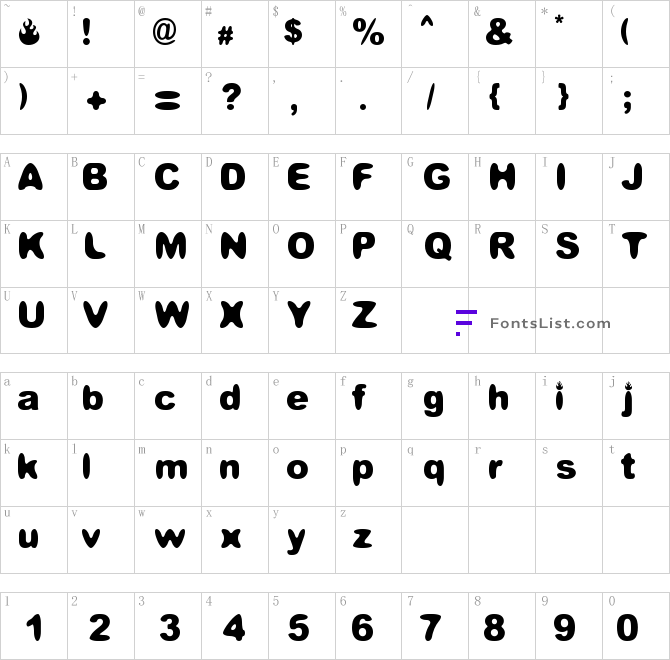
- Font Name:Candelita
Candelita.ttf is a very beautiful artistic font, Candelita.ttf is widely used in the design and printing of various books and pictures,Candelita.ttf has a strong visual impact,Candelita.ttf is a commonly used font in newspapers, magazines and books, and is used in posters, e-commerce Poster design, store design, logo design, font design and other fields.Candelita.